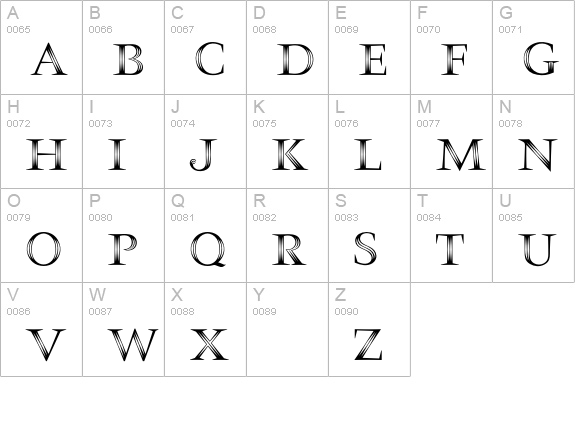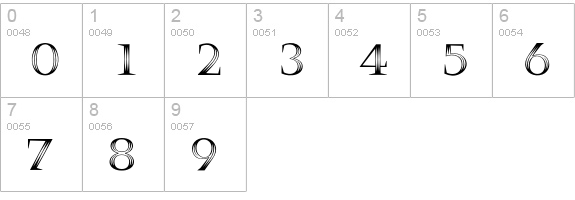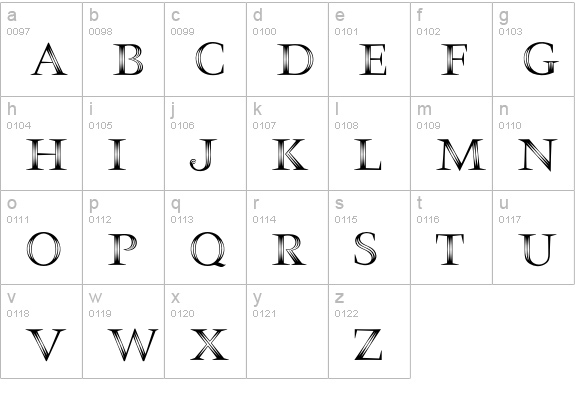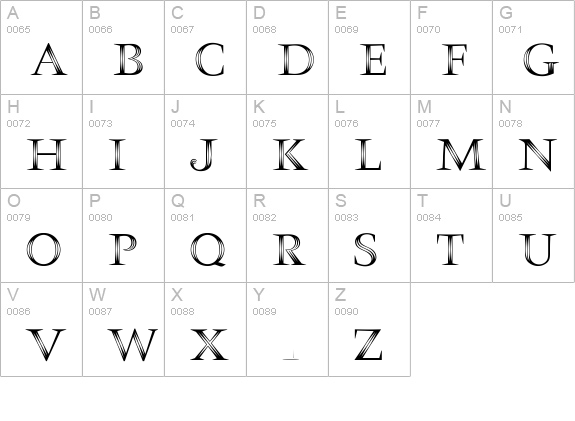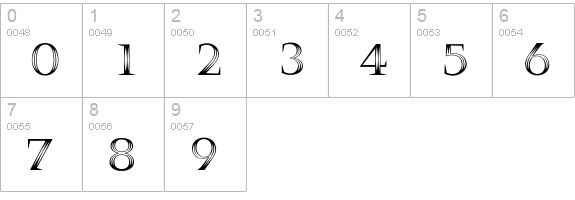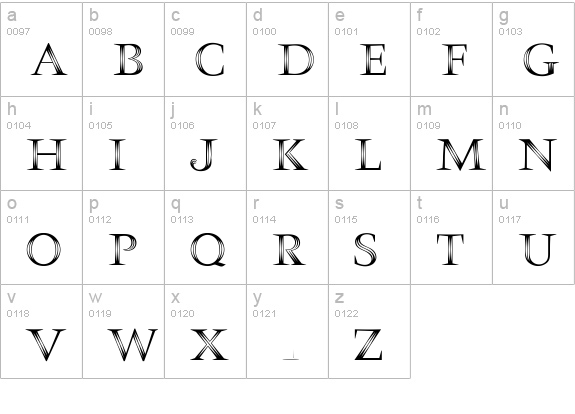
Palace Font Details
Palace font is a stunning and sophisticated typeface that exudes elegance and charm. Its intricate and ornate design captures the essence of royalty and grandeur, making it the perfect choice for projects that demand a touch of regal sophistication. Palace font features beautifully crafted letterforms with delicate curves and graceful lines, creating a sense of luxury and opulence. This remarkable font is not only visually captivating but also highly versatile. It can be used for a wide range of design projects, from wedding invitations and logos to magazine covers and branding materials. Palace font effortlessly adds a touch of class and elegance to any design, making it a must-have for designers and creatives alike. One of the best things about Palace font is that it is available for free! Yes, you heard that right. This incredible font can be freely downloaded at FontsMarket.com, where you can explore a vast collection of high-quality fonts. With Palace font, you can unleash your creativity and bring your design visions to life without any cost. Whether you are a professional graphic designer or a hobbyist looking to add a touch of sophistication to your projects, Palace font is the perfect choice. Its timeless beauty and free availability make it a valuable asset in your font library. So why wait? Download Palace font now and experience the luxurious world of regal typography.